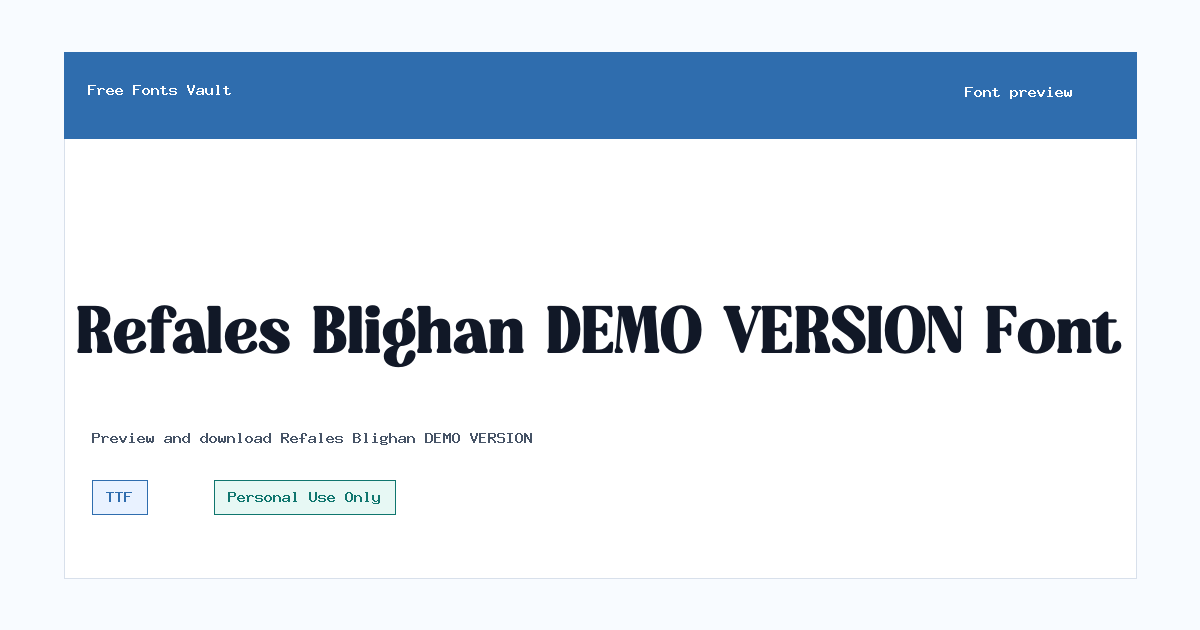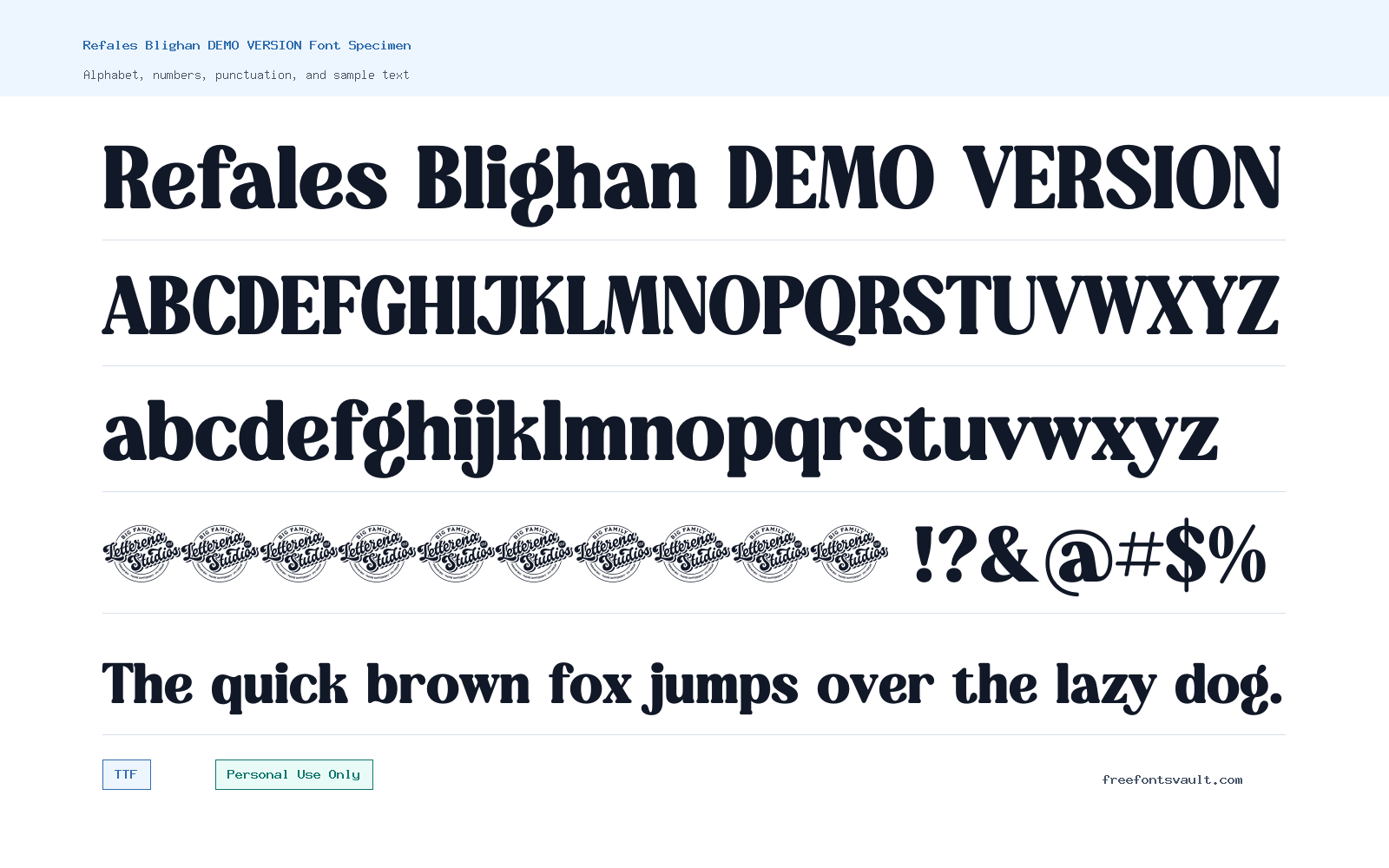
Refales Blighan DEMO VERSION
- Designer Heru Utama Putra
- Foundry Letterena Studios
Refales Blighan DEMO VERSION font.
Refales Blighan DEMO VERSION is a serif font family for personal projects, with regular and italic styles available in both TTF and OTF formats. It is best approached as a display typeface to test in short text, titles, and visual mockups before deciding whether it fits your project.
About Refales Blighan DEMO VERSION Font
Refales Blighan DEMO VERSION is listed as a serif font by Heru Utama Putra of Letterena Studios. The demo package includes upright and italic styles, which gives you a little more range than a single-style download. Use the regular style when you want a cleaner title or heading, and try the italic style when the design needs a softer or more expressive accent. Because this is a demo version, treat it as a trial font rather than a full production family. Test the letters you plan to use, check punctuation, and preview the words at the exact size you need.
This font can work well for personal design tests such as poster drafts, invitation layouts, quote graphics, mood boards, logo experiments, packaging mockups, and social media artwork. Serif display fonts often look strongest in short settings, so start with names, headlines, initials, and brief phrases instead of long paragraphs. If you are using it for logo work, check every letter combination carefully, especially where curves, capitals, and spacing meet. For web mockups, use it in hero text or section titles rather than body copy until you confirm readability at smaller sizes.
The regular and italic styles can be useful together when you want contrast without mixing too many typefaces. A simple layout might use Refales Blighan DEMO VERSION for the main title and a plain sans serif for supporting text. That keeps the serif style visible while making dates, descriptions, prices, or navigation easier to read. If the title already has a decorative feel, avoid pairing it with another busy font. Give it space, use modest line spacing, and let the letter shapes carry the page.
- Includes regular and italic styles
- Useful for short display text, title previews, and logo mockups
- Personal poster designs and quote graphics
- Invitation drafts and greeting card mockups
- Editorial-style headings and title treatments
- Packaging, label, and brand mood board experiments
- Website hero text in non-commercial mockups
Use Refales Blighan DEMO VERSION mainly for short text. Try the regular style for headlines and the italic style for emphasis, names, or secondary title lines. Pair it with a quiet sans serif or a simple text serif so supporting copy stays readable. Before using it in a finished design, preview your exact wording, check spacing between letters, test both TTF and OTF if needed, and confirm the license for your intended use.
Who designed Refales Blighan DEMO VERSION?
The designer is listed as Heru Utama Putra, and the foundry is listed as Letterena Studios.
Does the font include italic?
Yes. The package lists both upright and italic styles.
What is this font best used for?
It is best suited to short personal-use display text such as titles, posters, invitation drafts, quote graphics, logo experiments, and design mockups.
Should I use this font for body text?
Test it carefully first. For most layouts, it is safer to use Refales Blighan DEMO VERSION for headings or short phrases and pair it with a simpler font for longer reading.